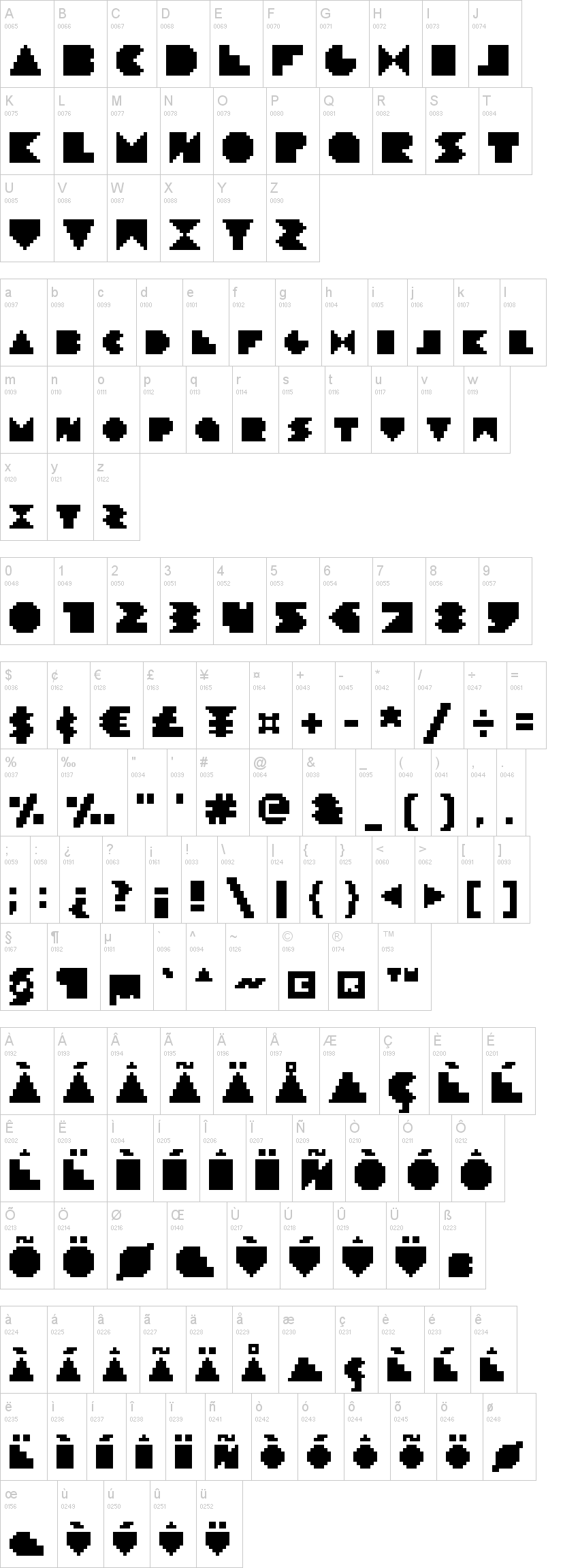
Note of the authorForma by jeti: Flat, geometric shapes inspired by the Memphis art group. Post-modern, legible-adjacent, and bold. The name Forma comes from the Italian word for shape.